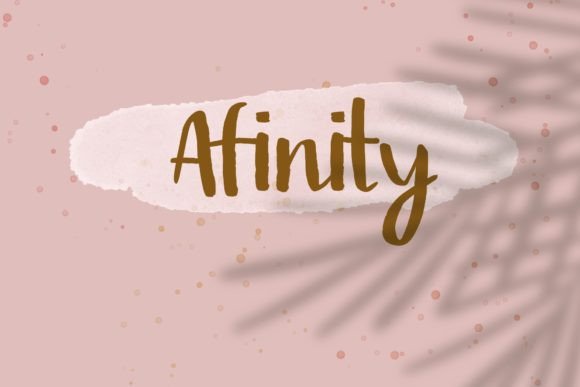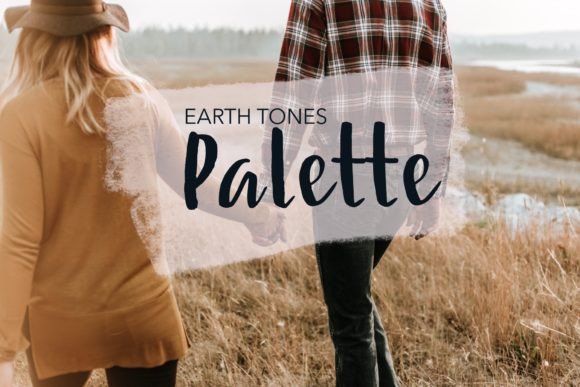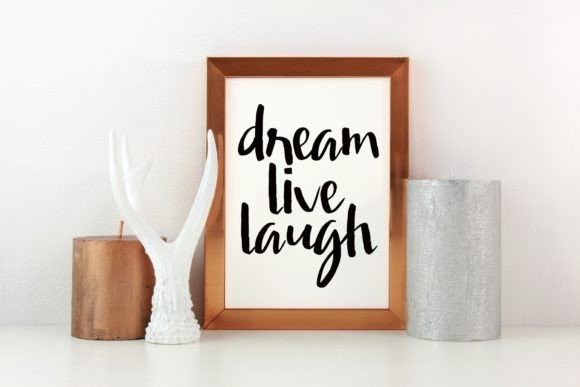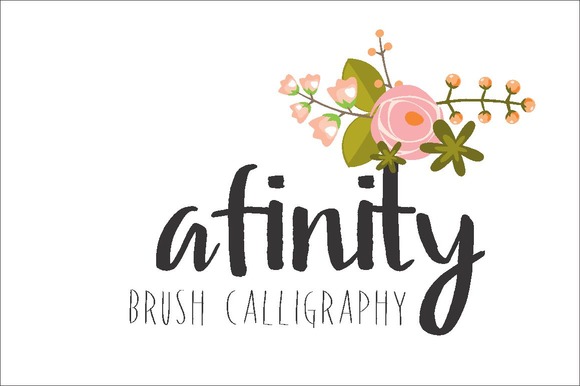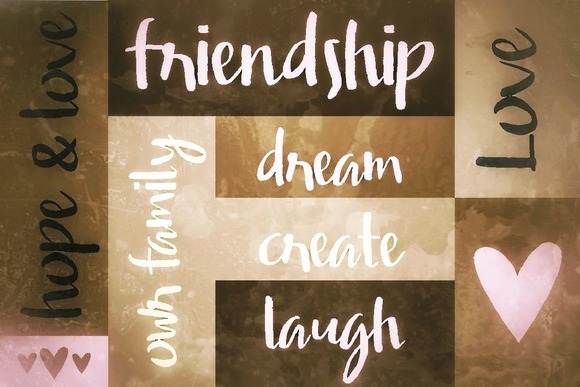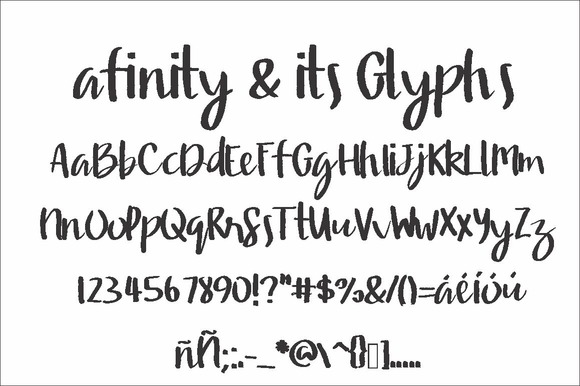
HomeScript FontsAfinity Font Script Fonts Afinity Font FacebookXPinterestWhatsApp Afinity Font Poster 2 Afinity Font Poster 3 Afinity Font Poster 4 Afinity Font Poster 5 Afinity Font Poster 6 About Afinity Font Afinity is a brush calligraphy typeface. It has a serious and aligned look. DOWNLOAD NOW People also explored Quinn Font Paint Font Writing Minimalist Gattcam Font Paperbreak Font Girl Love Font Humming Bird Font Vintages Vacations Font Ailre Heleris Font 427 0 TagsAfinity Font Previous articleBarrel FontNext articleNostalgic Script Font LEAVE A REPLY Cancel reply Comment: Please enter your comment! Name:* Please enter your name here Email:* You have entered an incorrect email address! Please enter your email address here Website: Save my name, email, and website in this browser for the next time I comment. Personal Use Free Cuttering Personal Use Free Read more about this font Fifteenth Century Personal Use Free Read more about this font Bosque Font Personal Use Free Read more about this font Zelega Zenega Personal Use Free Read more about this font BLOG The 10 Best Handwriting Fonts to Add Personality to Your Designs 10 of the Best Handwriting Fonts for Adding Personality to Your Designs There will undoubtedly be no other better choice than handwriting fonts to give... Exploring Font Trends To increase your work productivity, choose the most readable fonts. How to Install and Use Fonts on Windows, macOS, and Web Projects